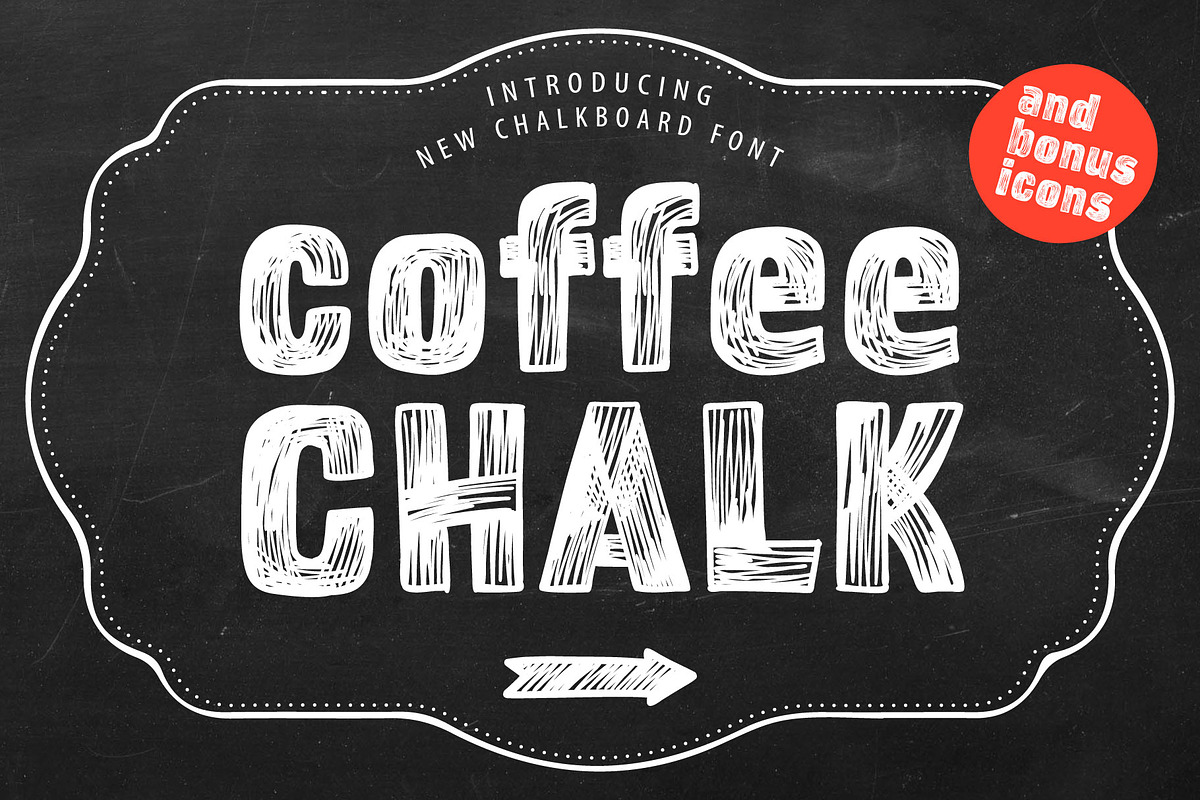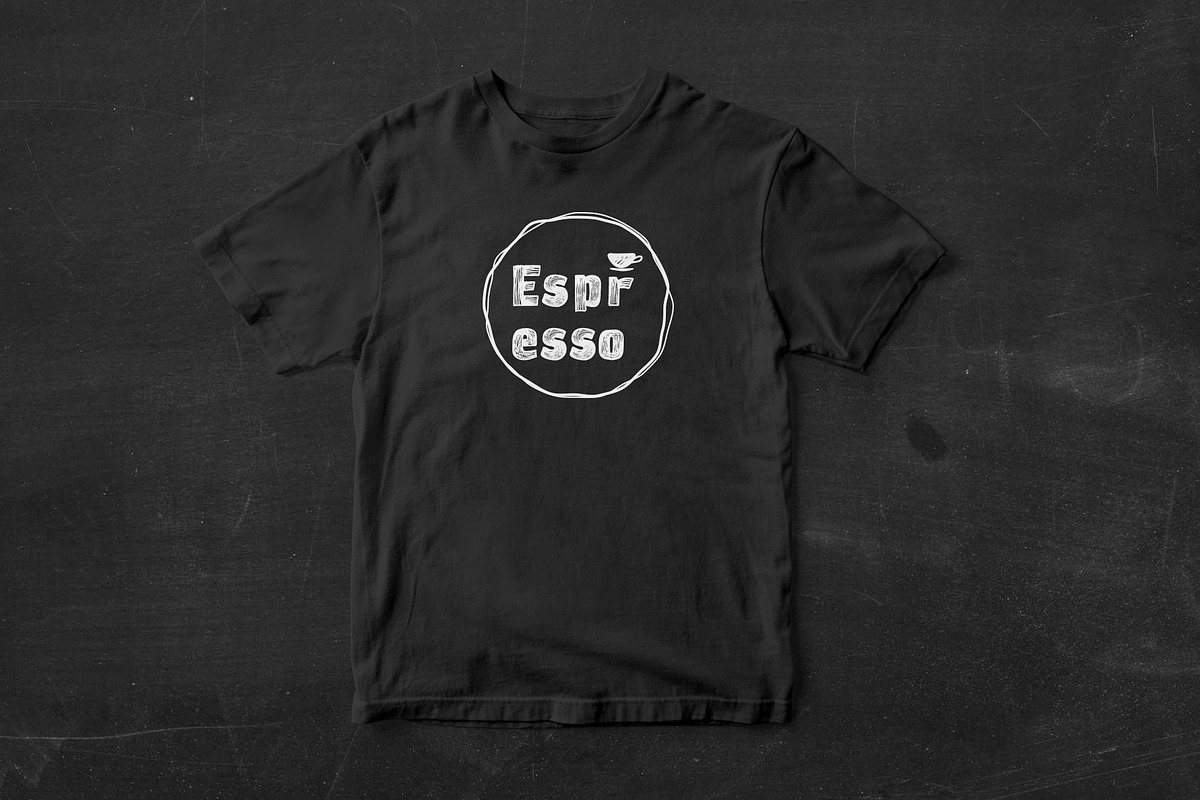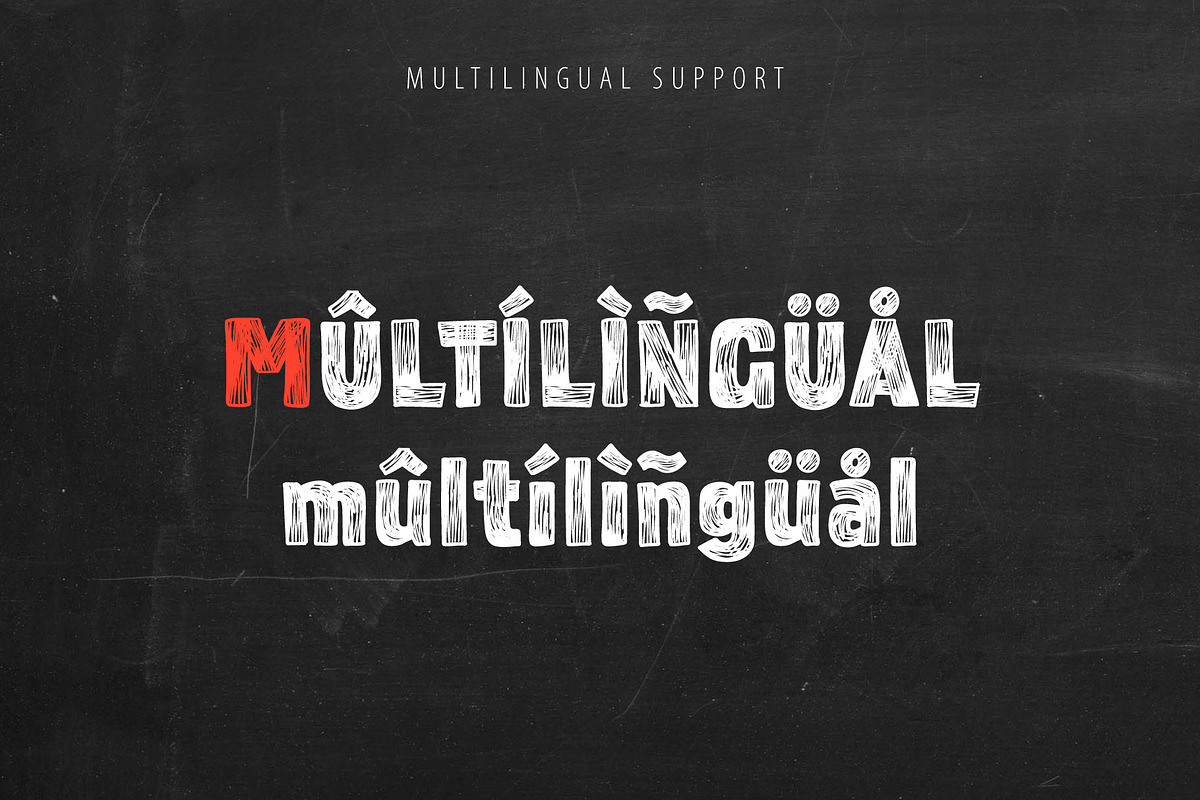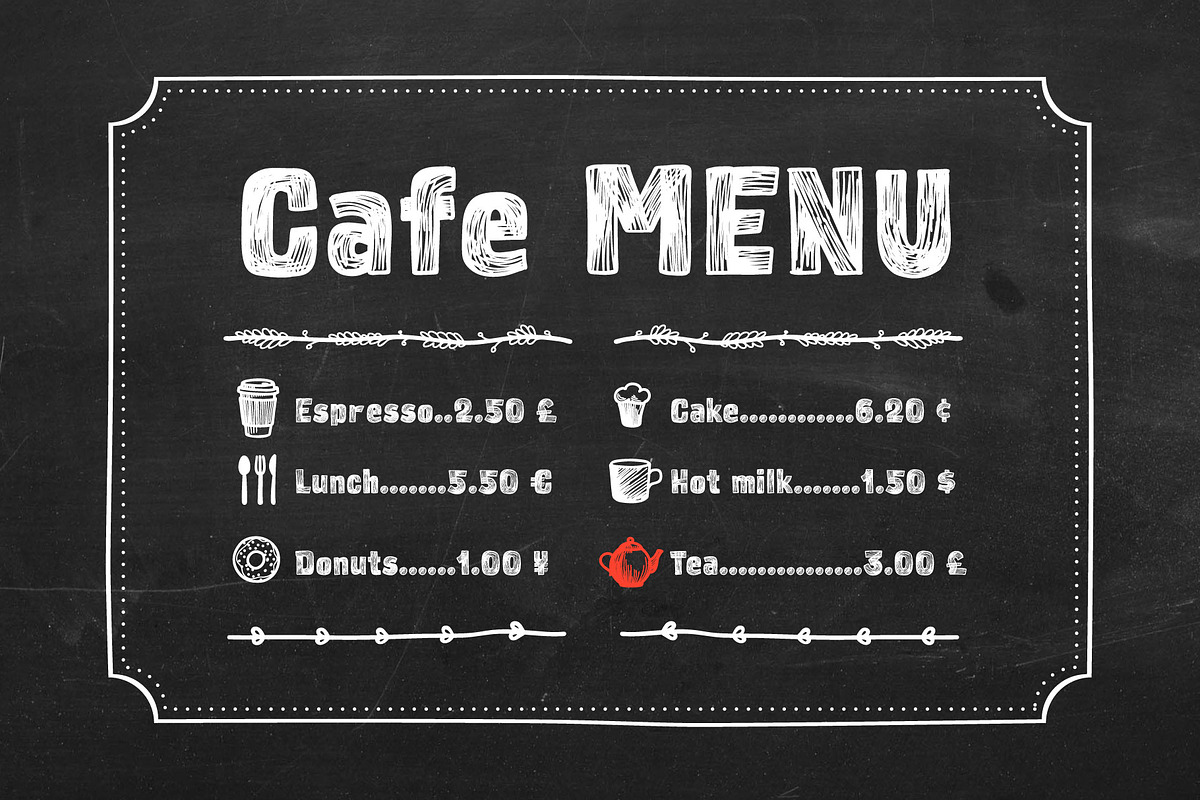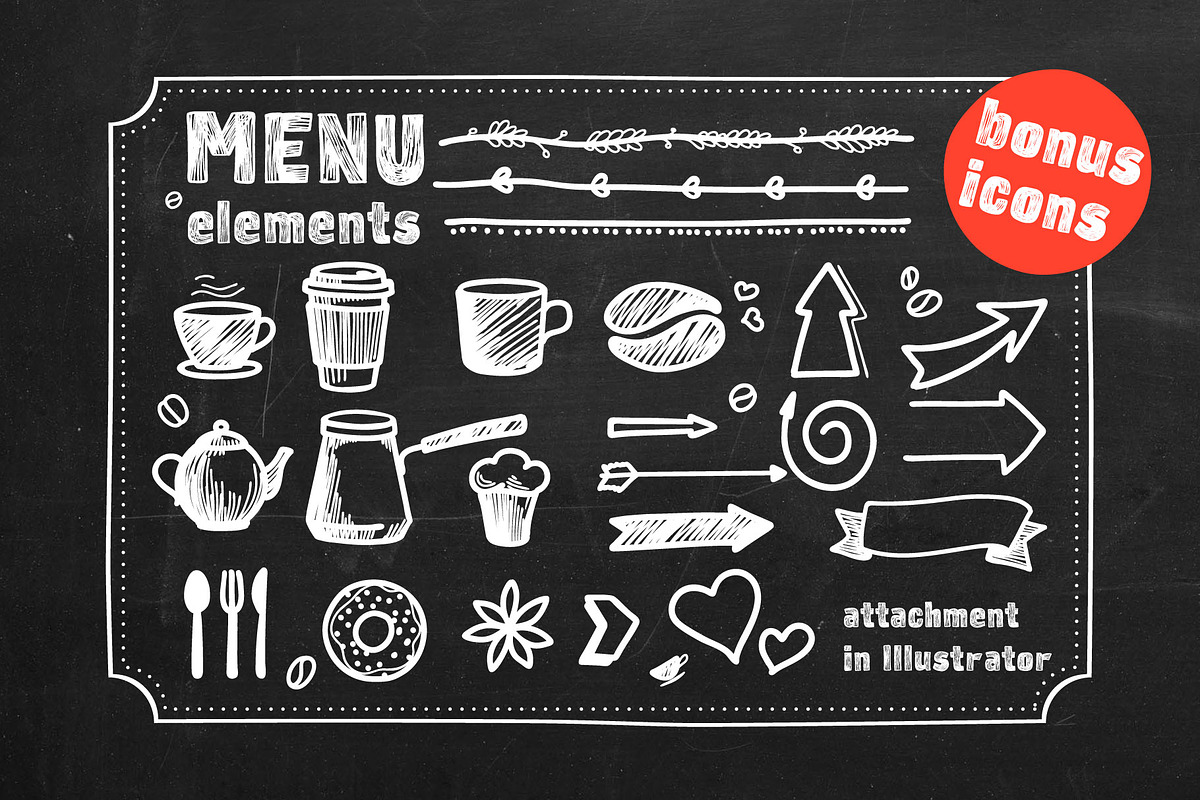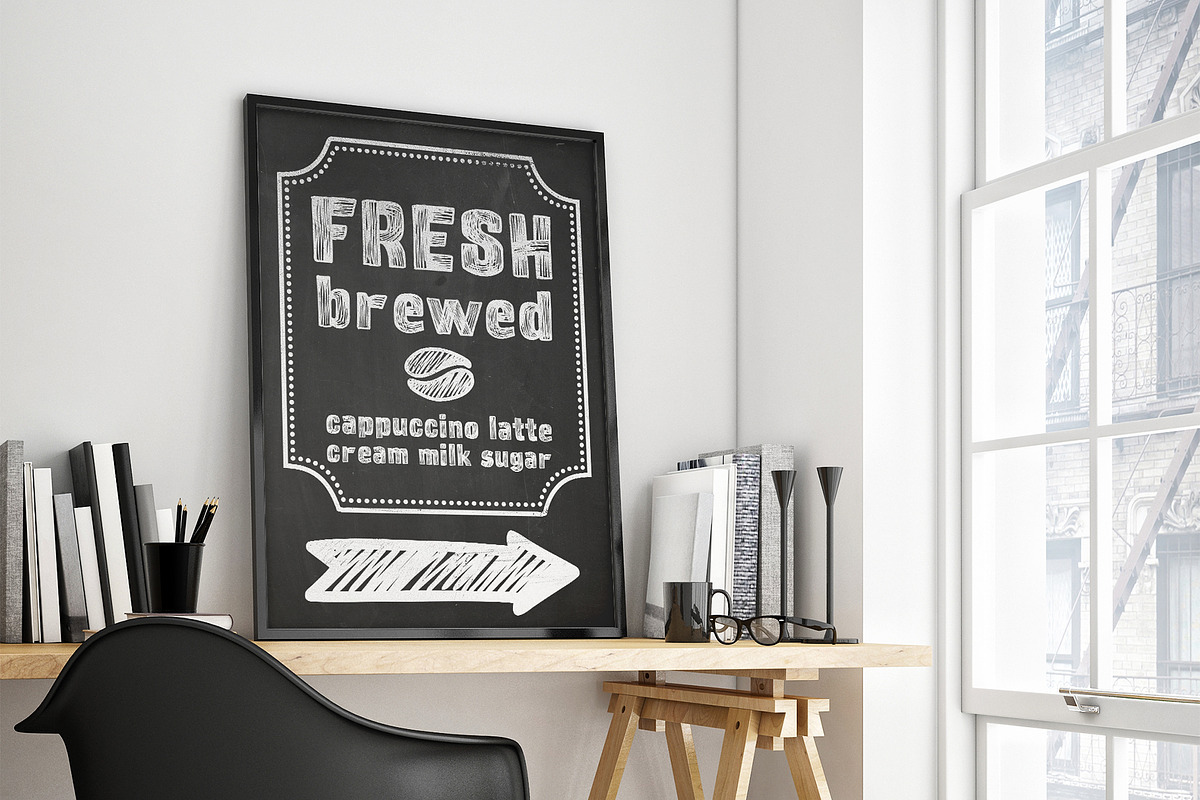
Coffee Chalk new chalkboard Font
Hey Guys! I’m happy to present my new typeface Coffee Chalk hand-drawn by chalk on a blackboard. This font is perfect for a school signboard, advertising of a coffee shop, retro logos, handwritten posters, bar identity, etc.